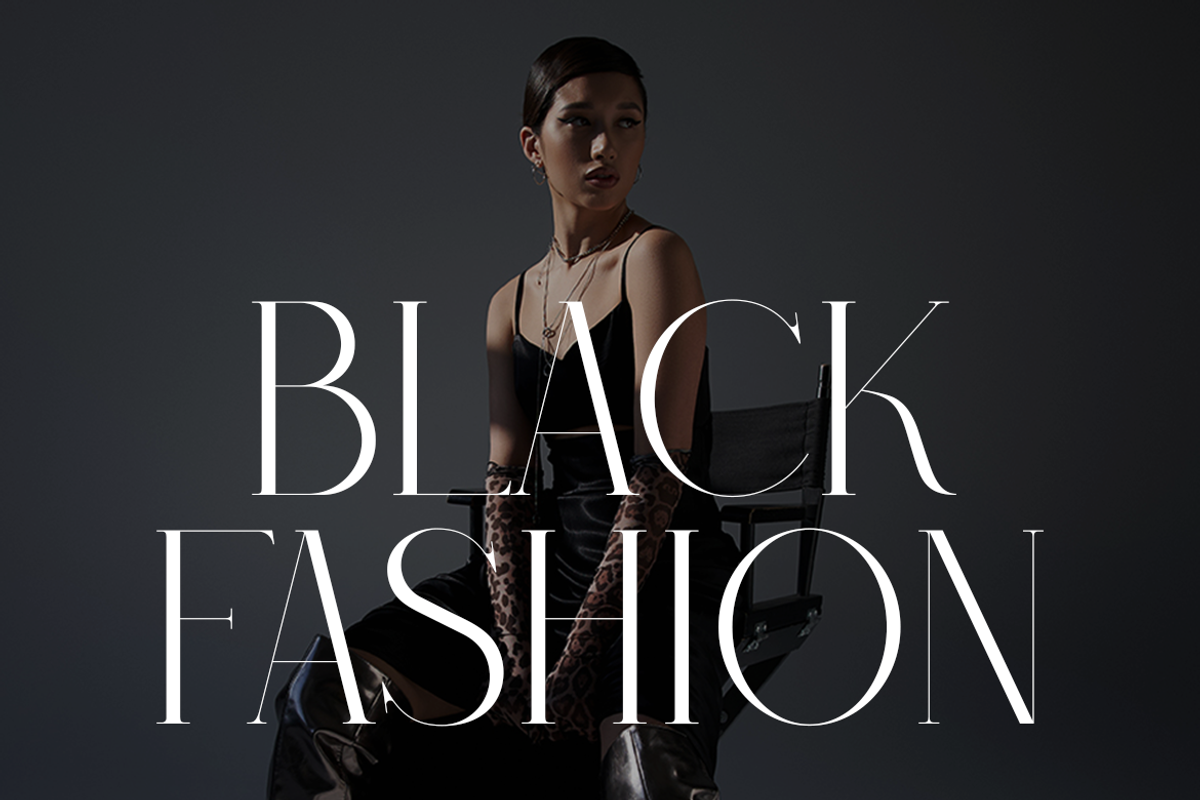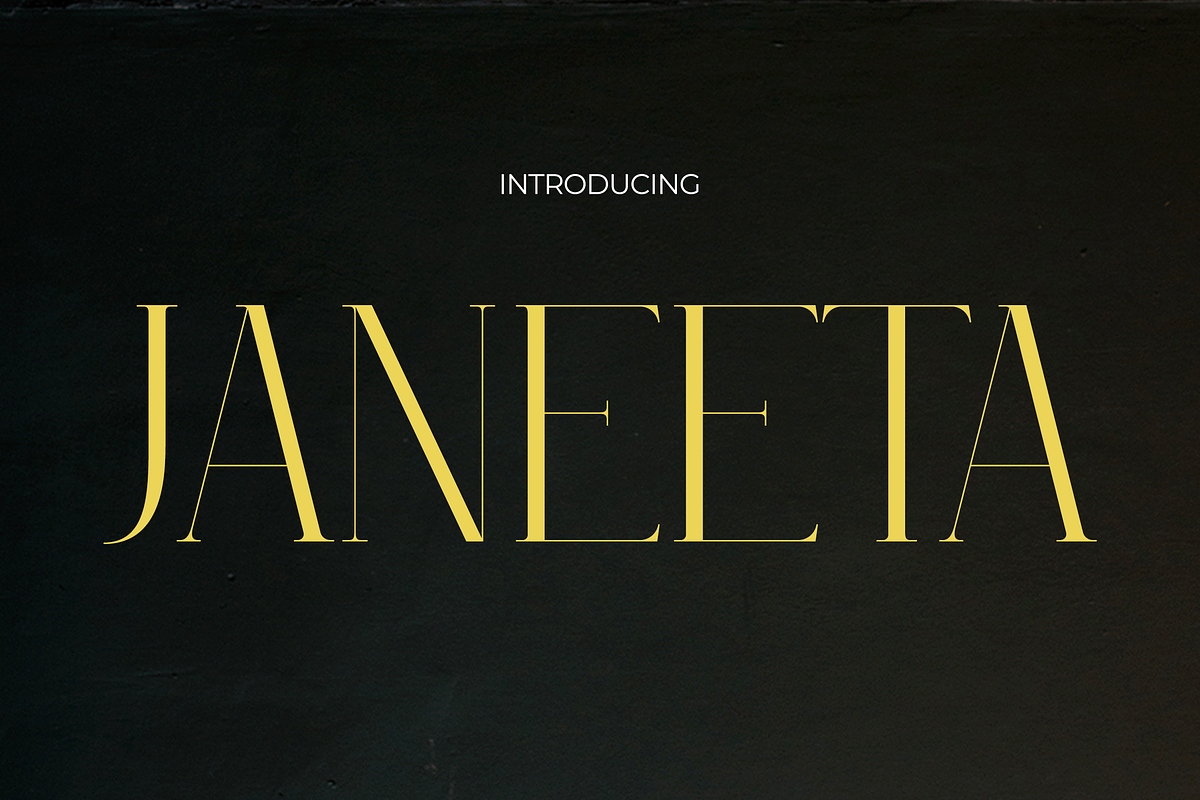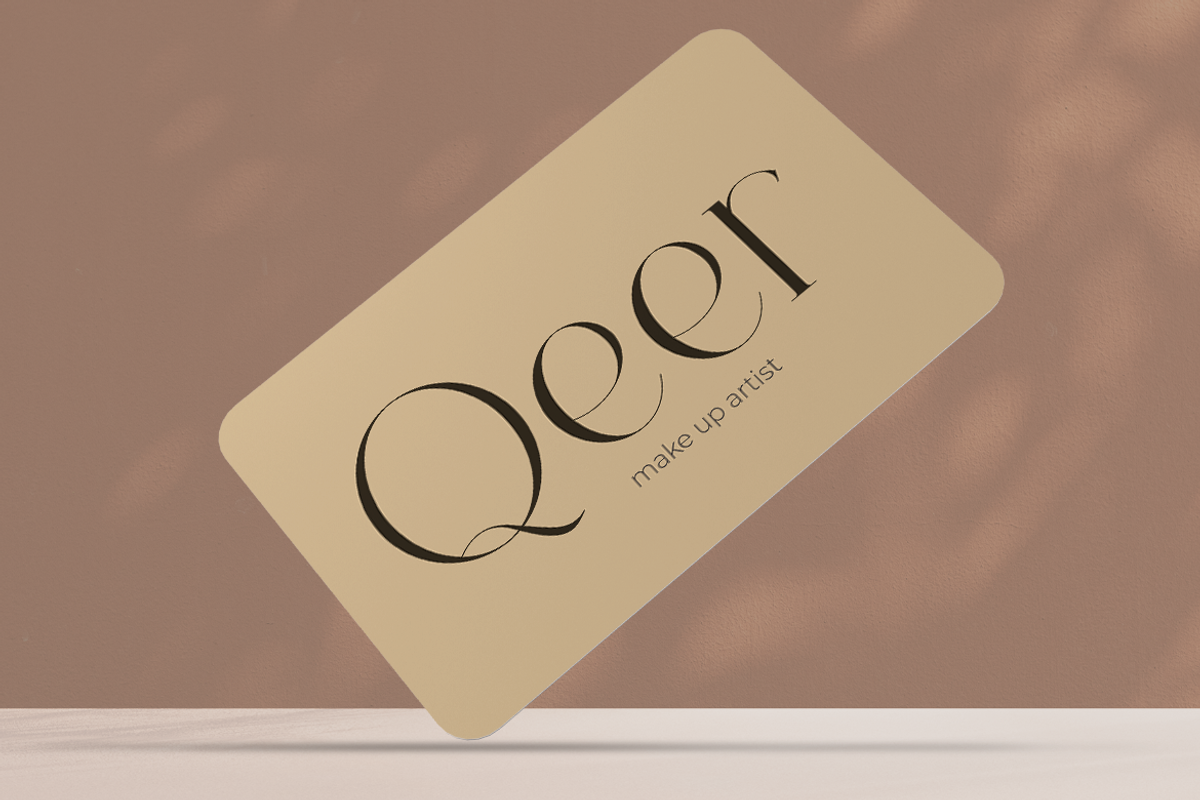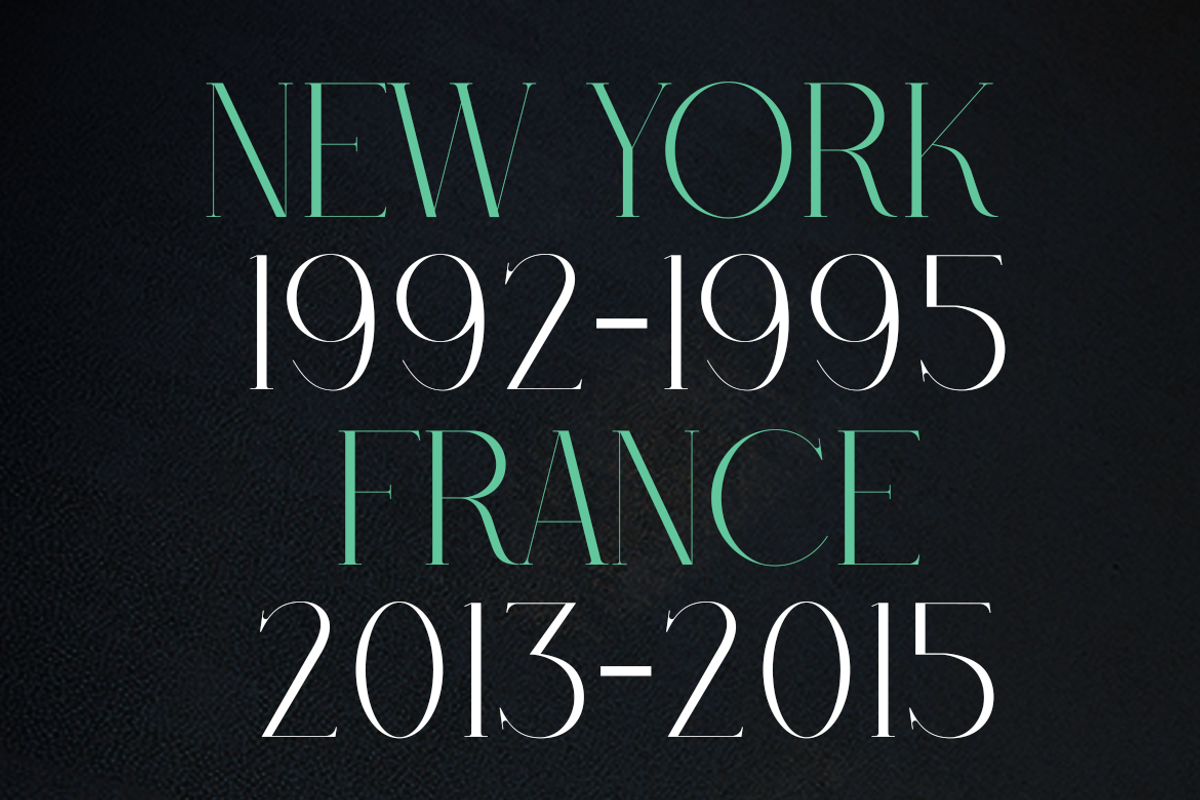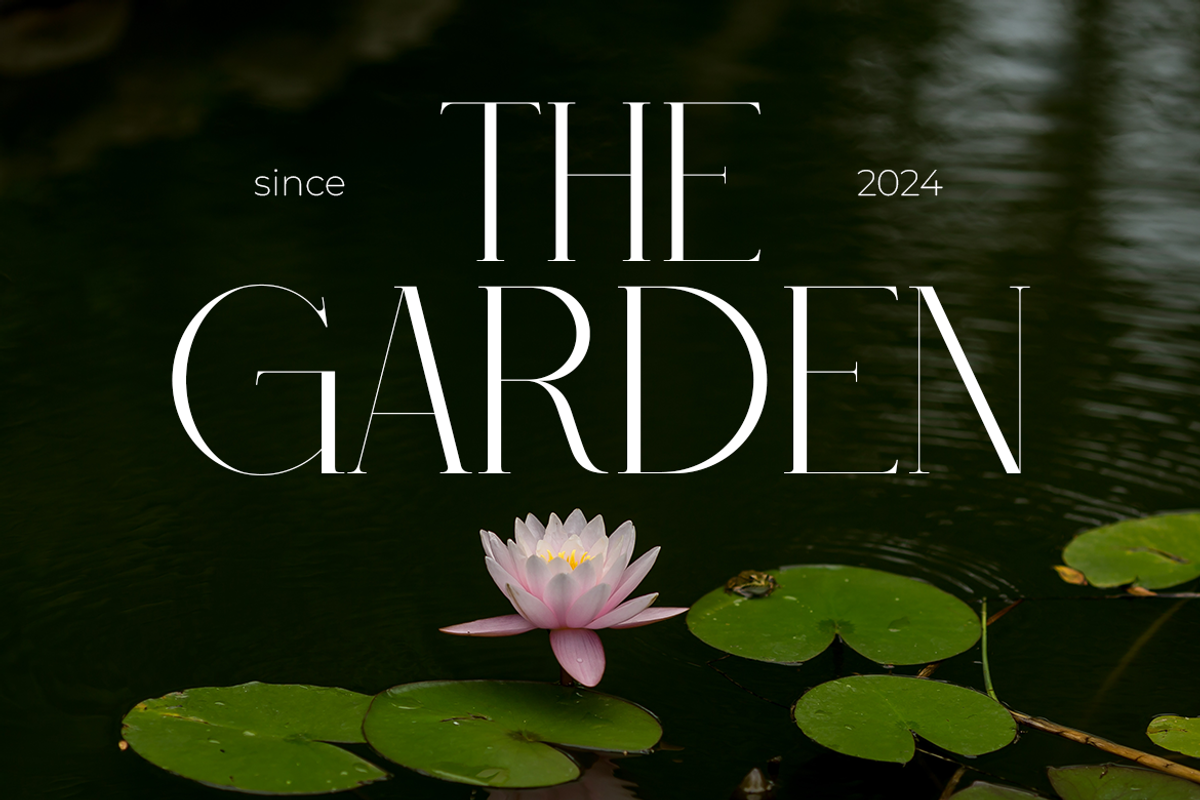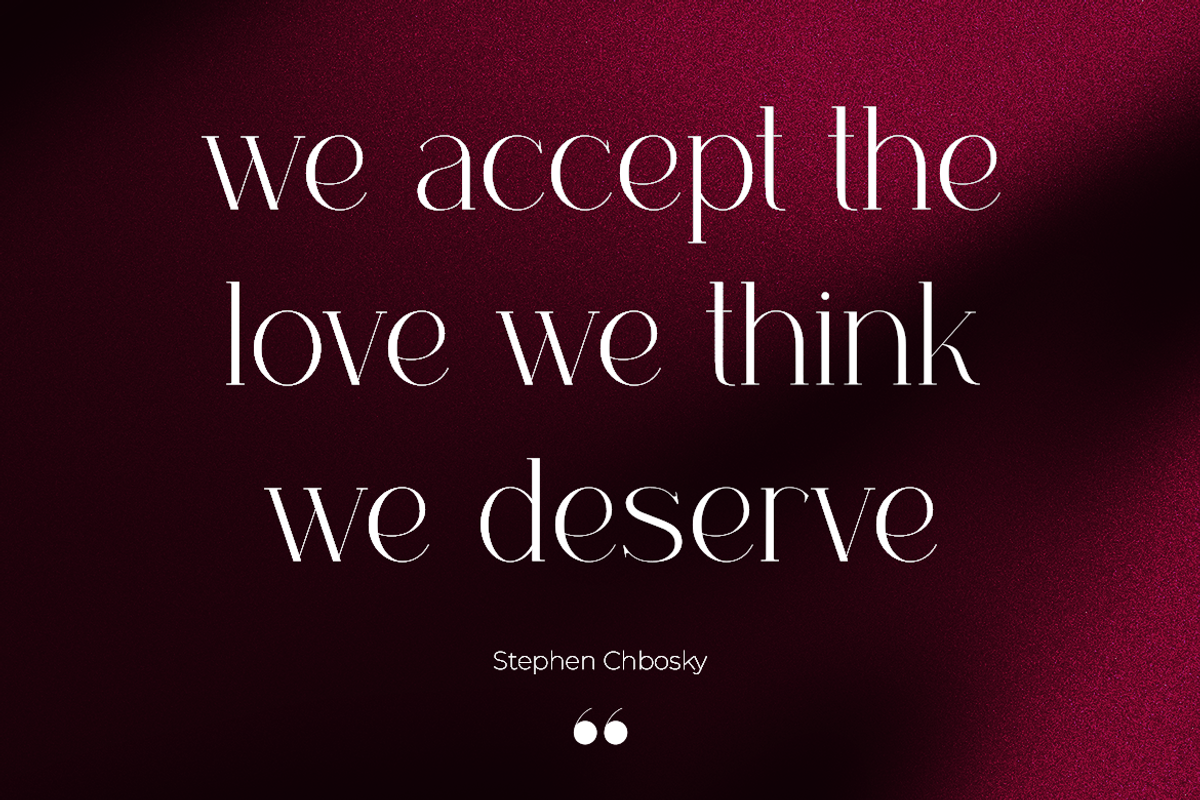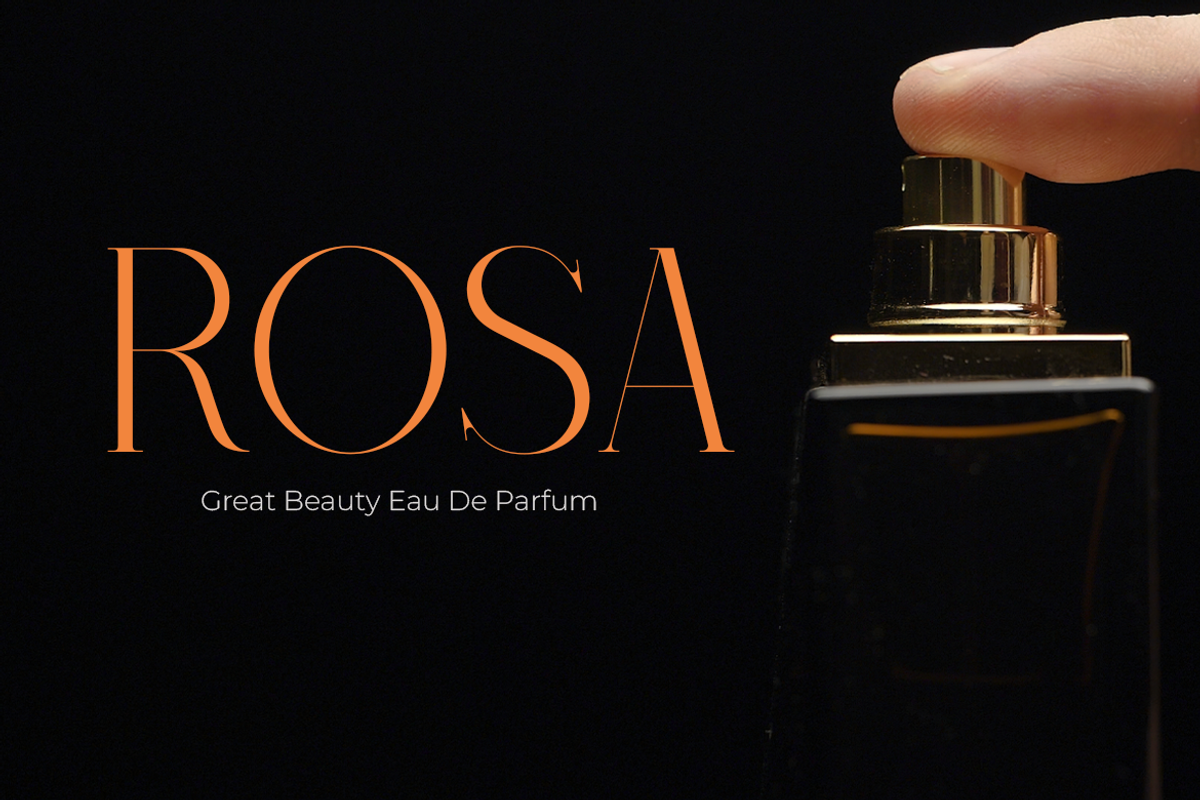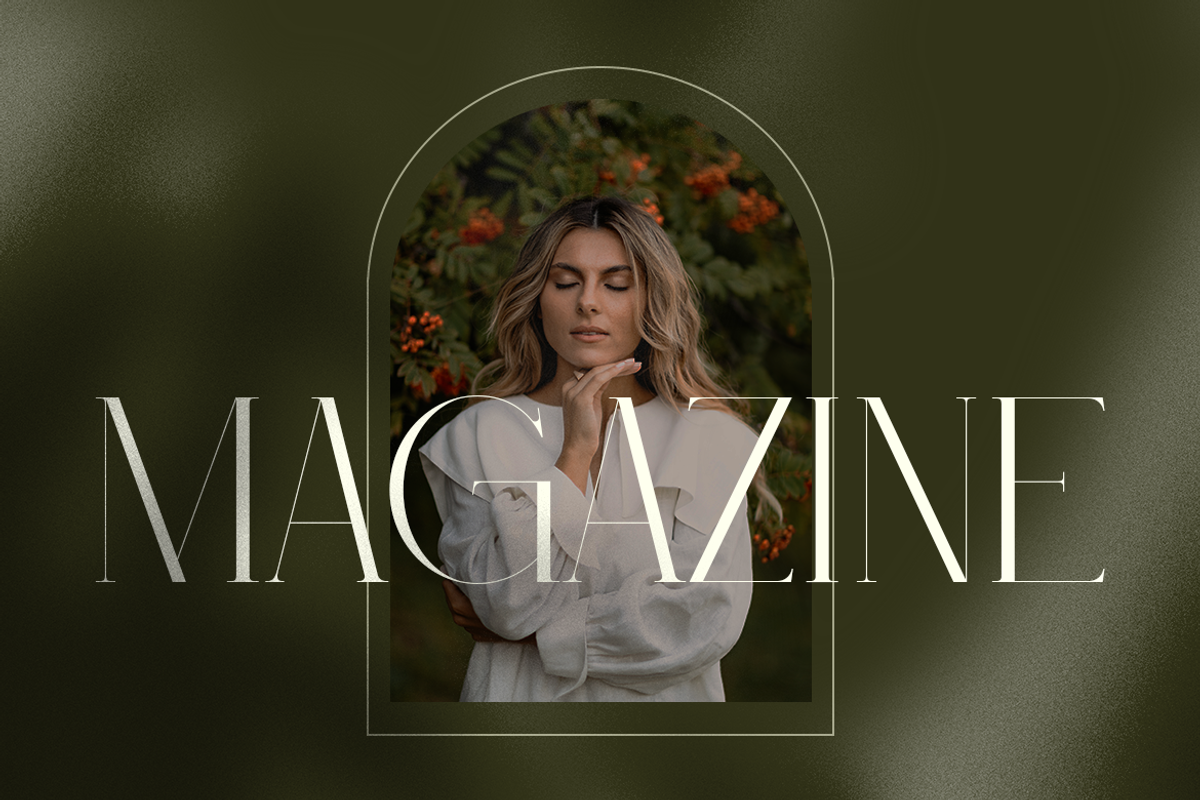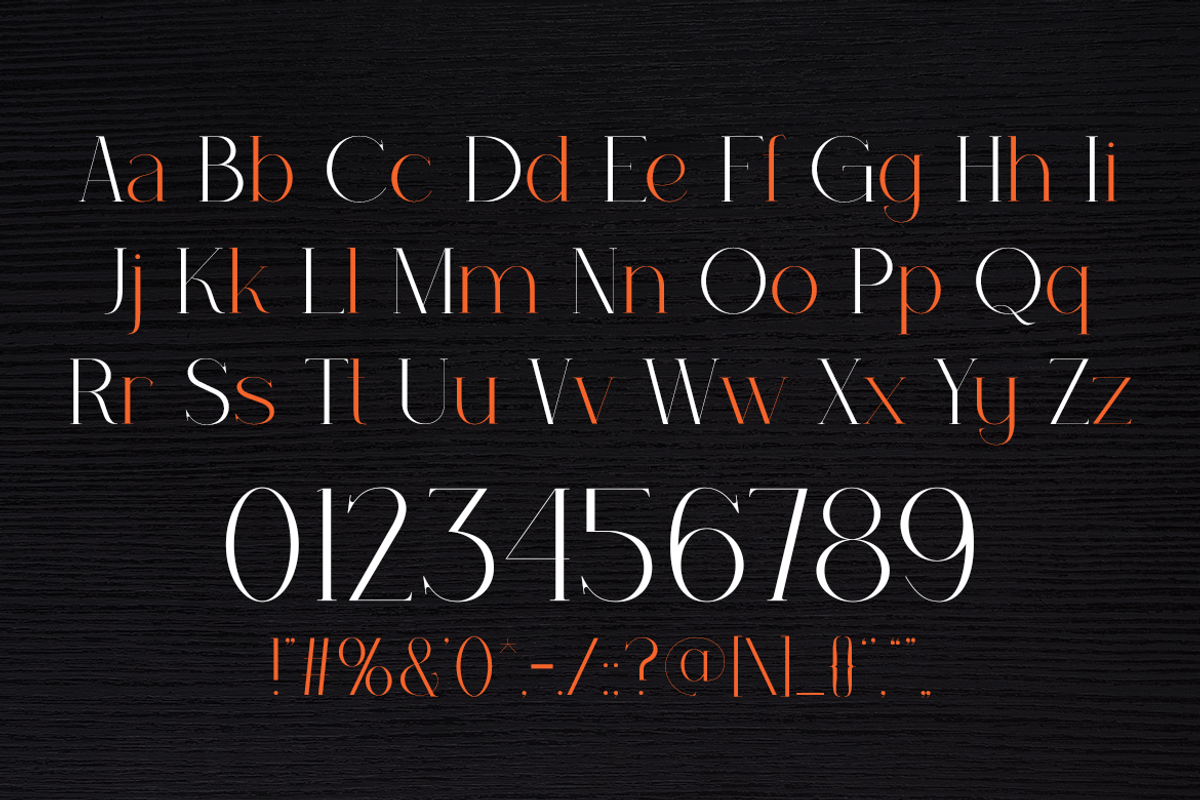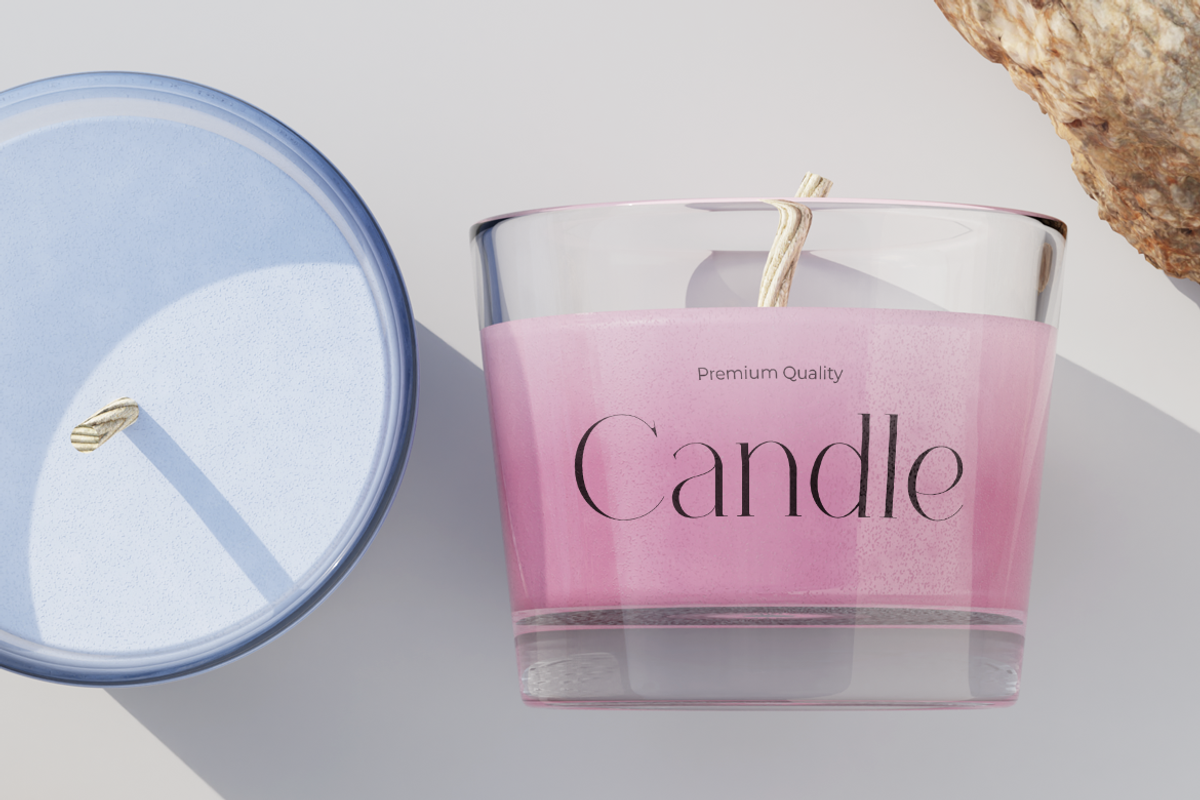
JANEETA
JANEETA – Unveiling Timeless Elegance with a Retro Flair
Elevate your graphic designs with our exclusive font, Janeeta, seamlessly blending the charm of retro aesthetics with an elegant touch. Each character of Janeeta is meticulously crafted to capture an enduring sense of sophistication, infusing a classic allure into every stroke. A perfect choice for projects seeking a refined nostalgic ambiance, Janeeta transcends the boundaries of a mere font and becomes a narrative of aesthetic enchantment. With beauty that withstands the test of time, Janeeta is not just a font but an embodiment of visual allure designed to captivate the eyes and evoke emotions. Available now to elevate your graphic designs to the next level.